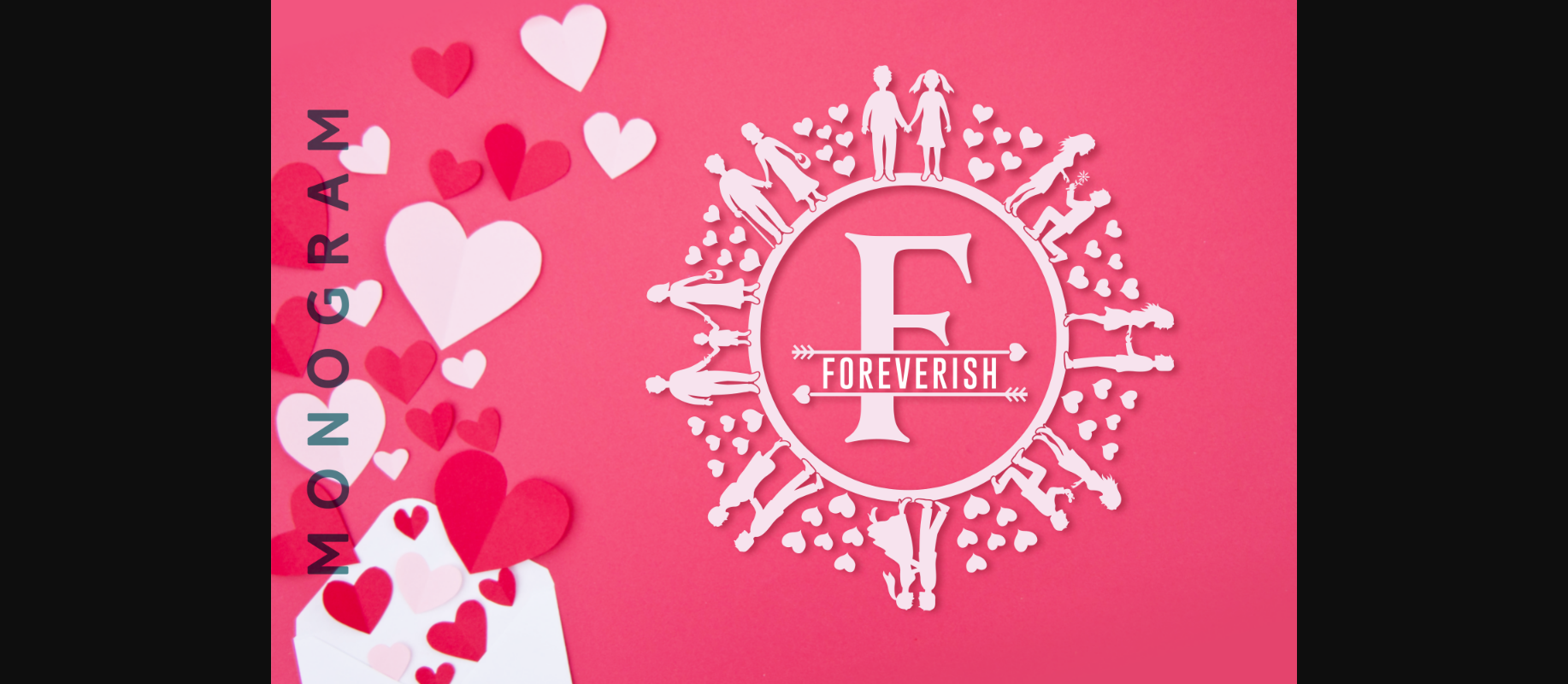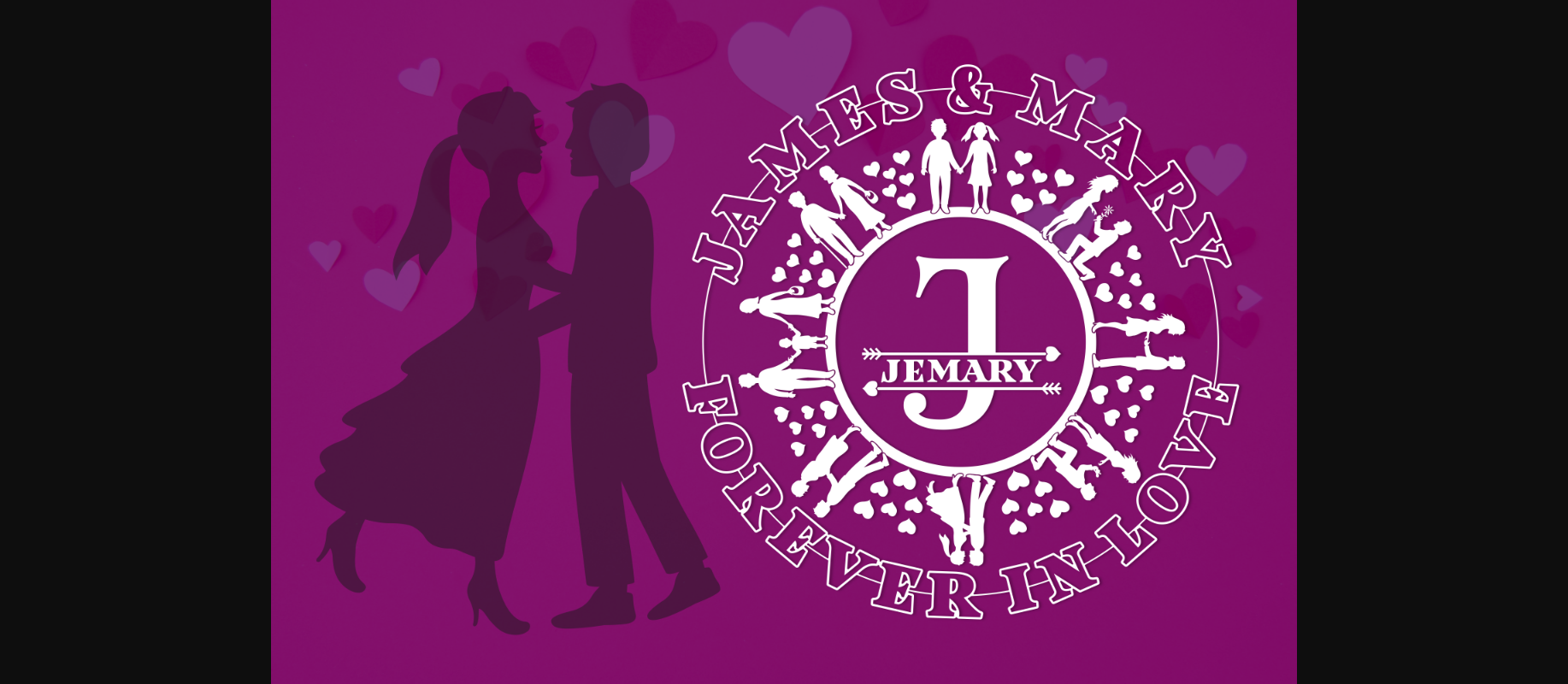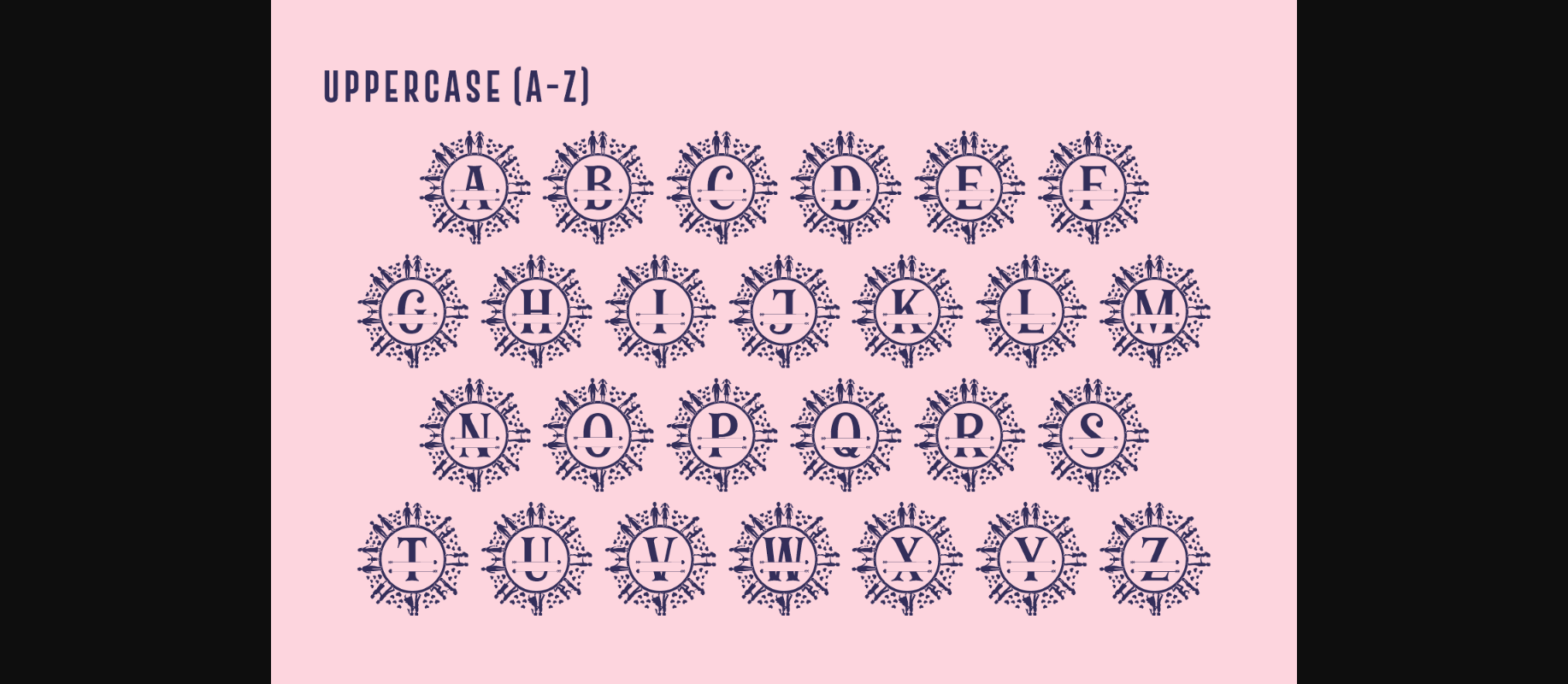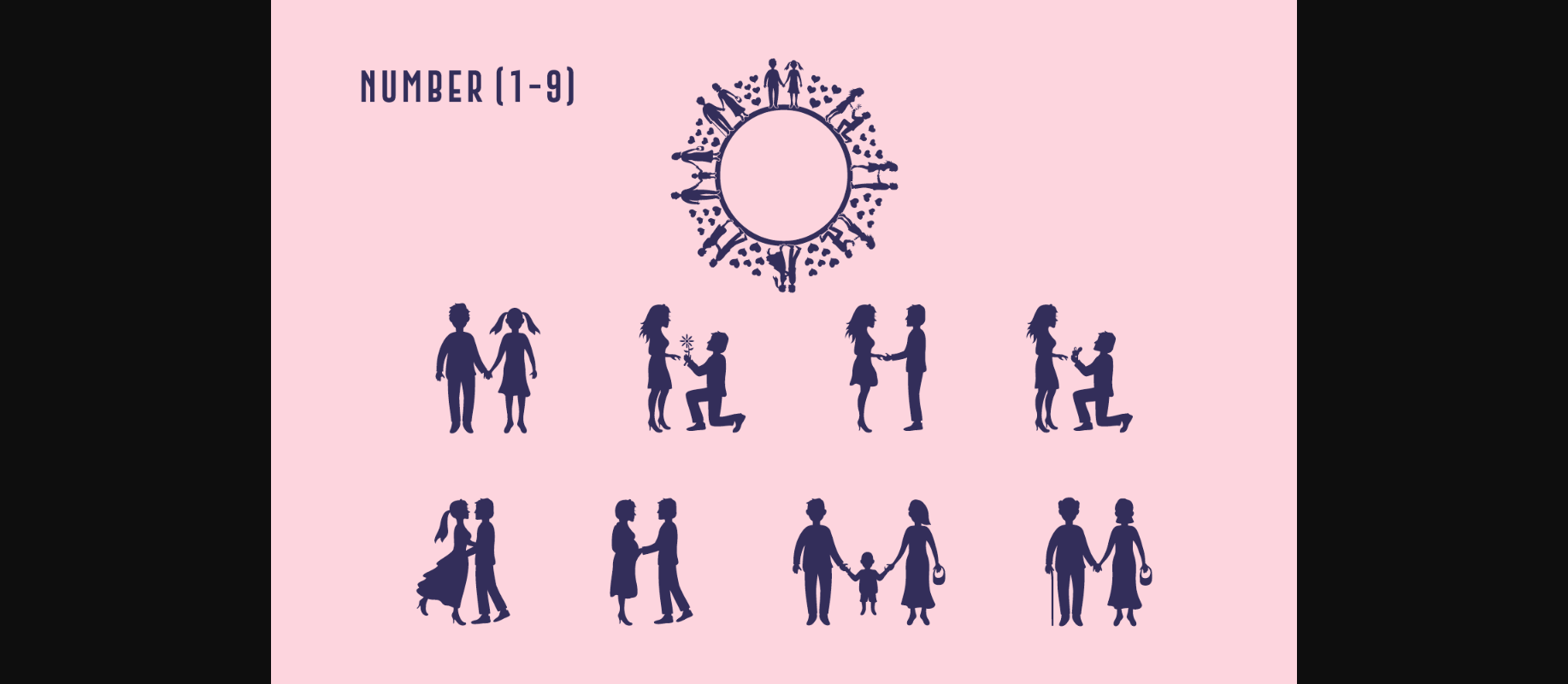
Foreverish Font
About Foreverish Font
Foreverish is a romantic and highly detailed decorative font. Featuring characters that dance along the baseline, this font will add a luxury spark to any design project that you wish to create!